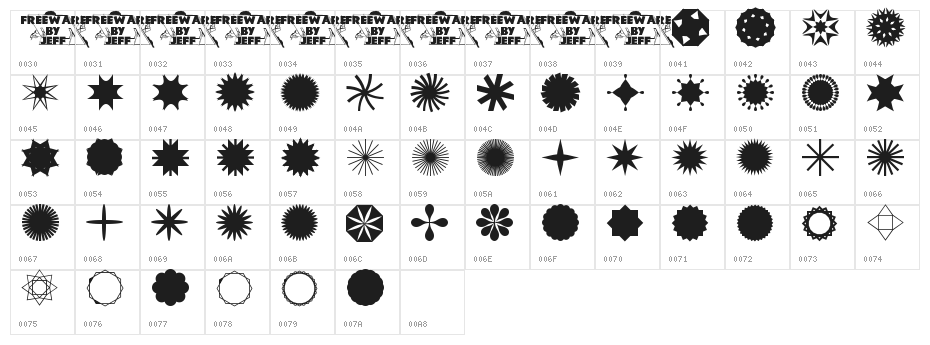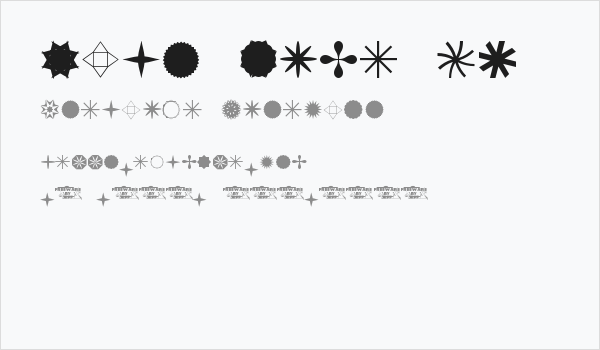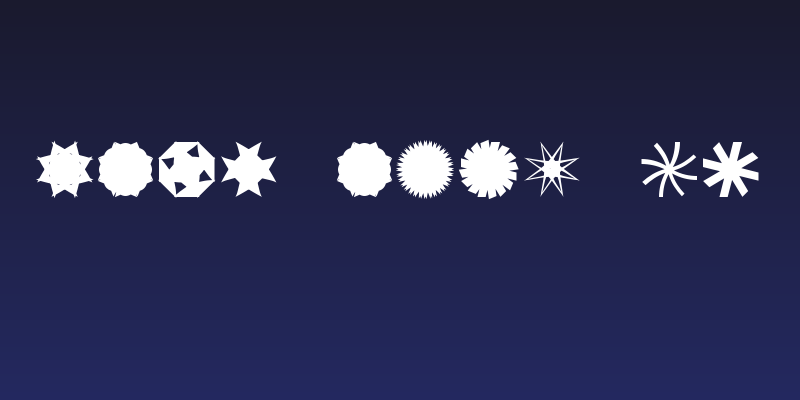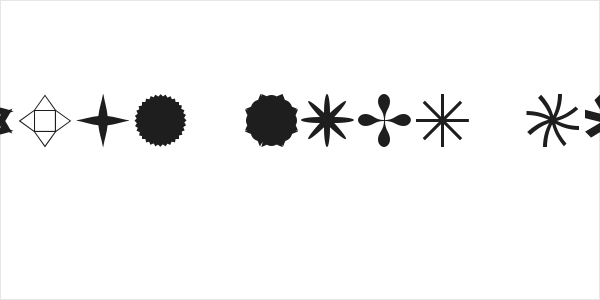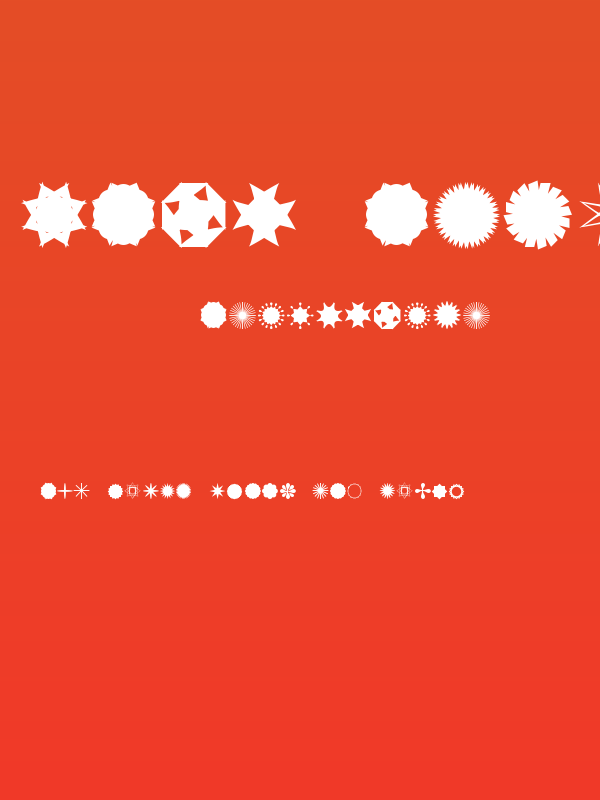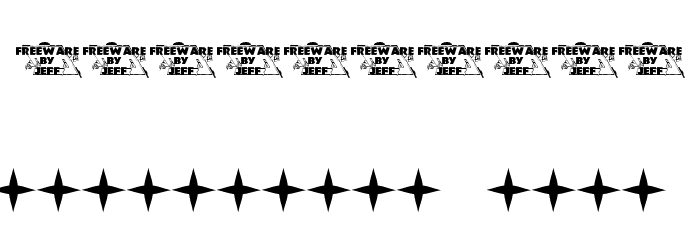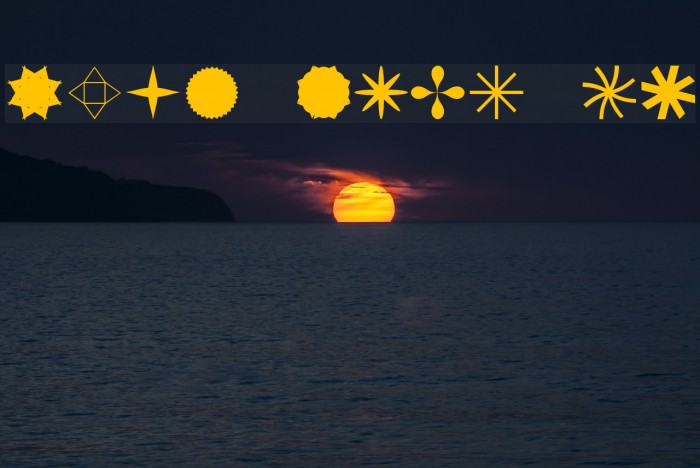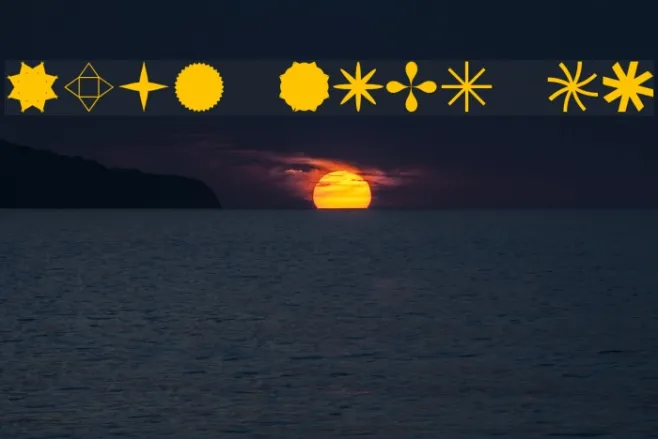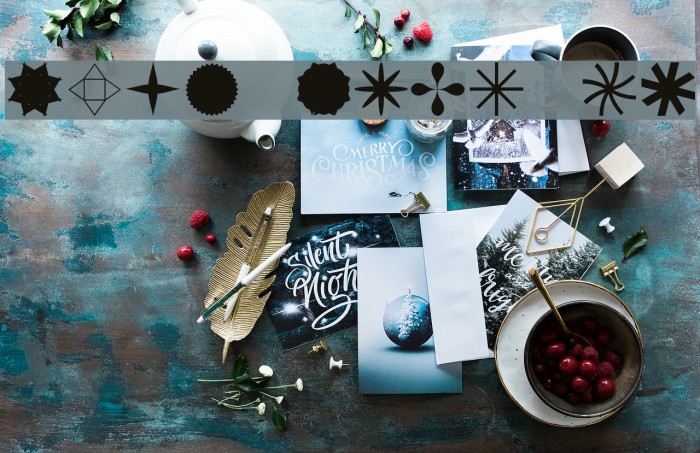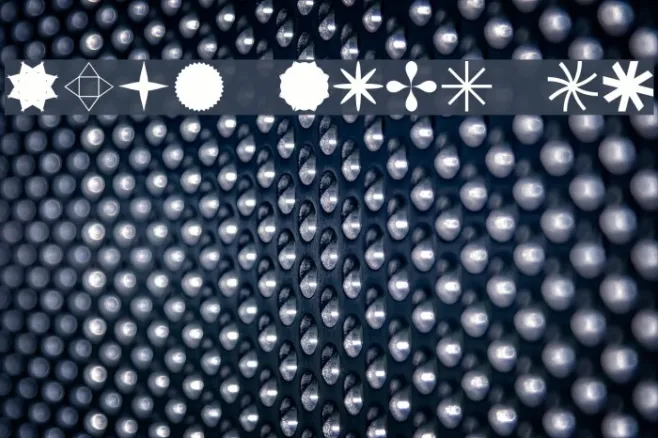
Star Time JL Font
Star Time JL Description
A decorative dingbat font featuring a variety of starburst, geometric, and ornamental shapes, including filled and outlined stars, sunbursts, and abstract motifs. The glyphs are bold, high-contrast, and designed for visual embellishment rather than text readability.
| Use Case | Ornamental elements, borders, dividers, graphic embellishments. |
| Proposed Projects | Borders, dividers, scrapbooking, invitations, certificates, decorative accents, digital art. |